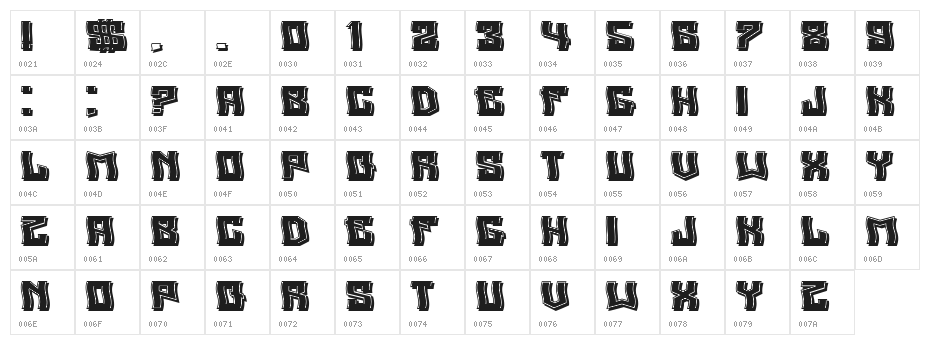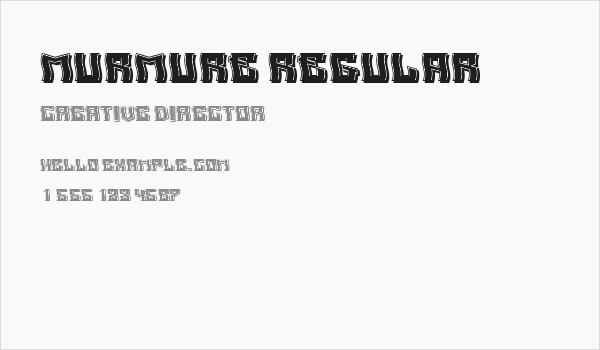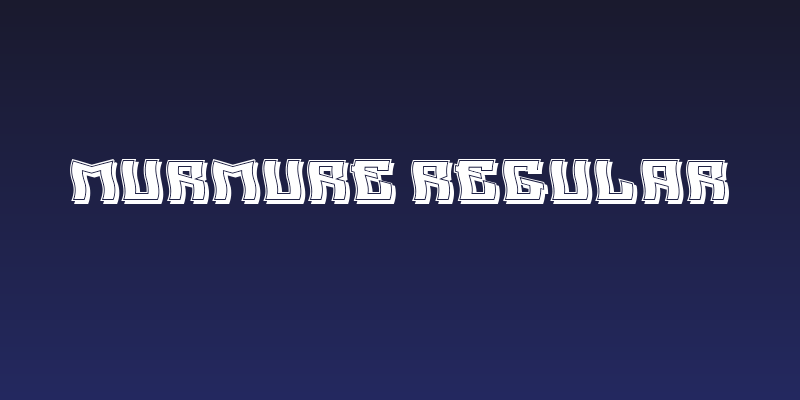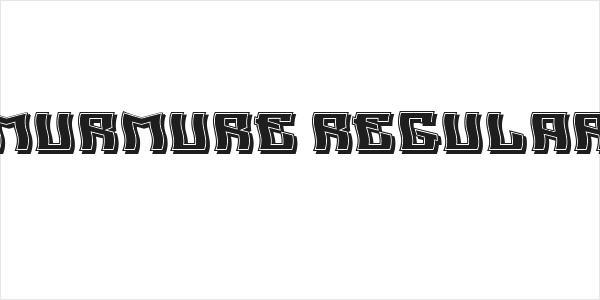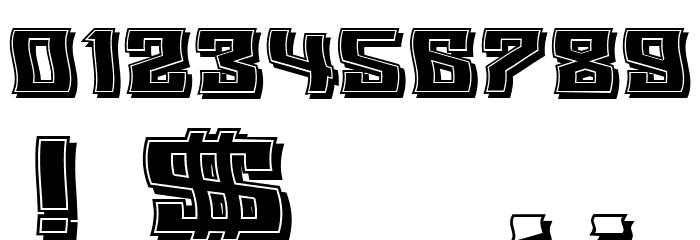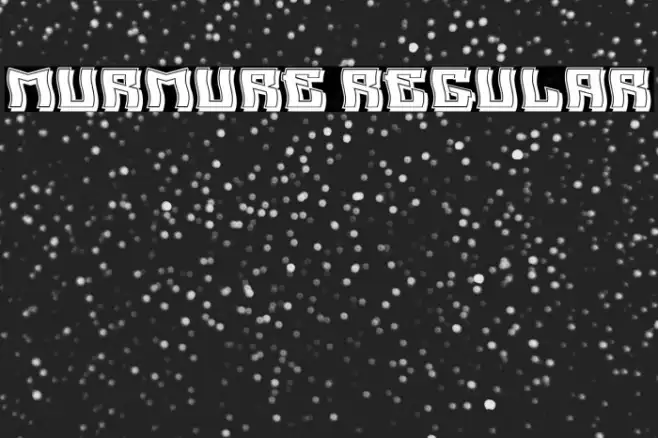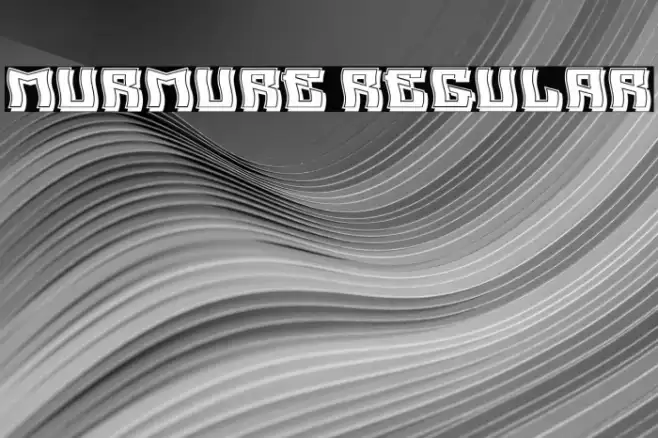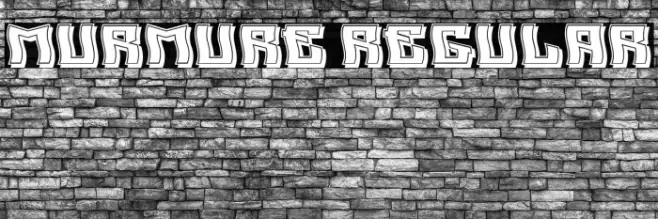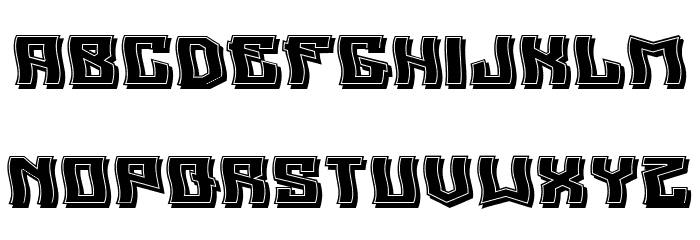
Murmure Regular Font
Murmure Regular Description
This font features a bold, decorative style with a strong presence. The characters are outlined with a thick black border, giving them a three-dimensional effect. The inner strokes are slightly irregular, adding a dynamic and edgy feel. The uppercase and lowercase letters maintain a consistent style, with sharp angles and unique cuts that enhance the font's boldness. Numbers and special characters are designed to match the overall aesthetic, ensuring a cohesive look across all text elements. The font's design is eye-catching and ideal for making a statement.
| Proposed Projects | Ideal for posters, logos, and branding projects that require a strong visual impact. |